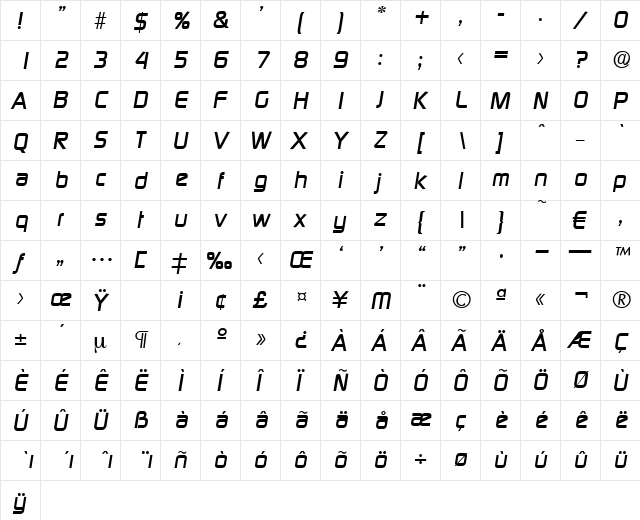
Digital-MediumIta Regular
Design Context for Digital-MediumIta Typeface
Digital-MediumIta has a distinctly futuristic character, with geometric precision and clean angles that feel at home in technology, gaming, and sci-fi contexts.
Pro Tip: Try Digital-MediumIta with generous letter-spacing in UI labels and navigation — the geometric forms benefit from room to breathe.